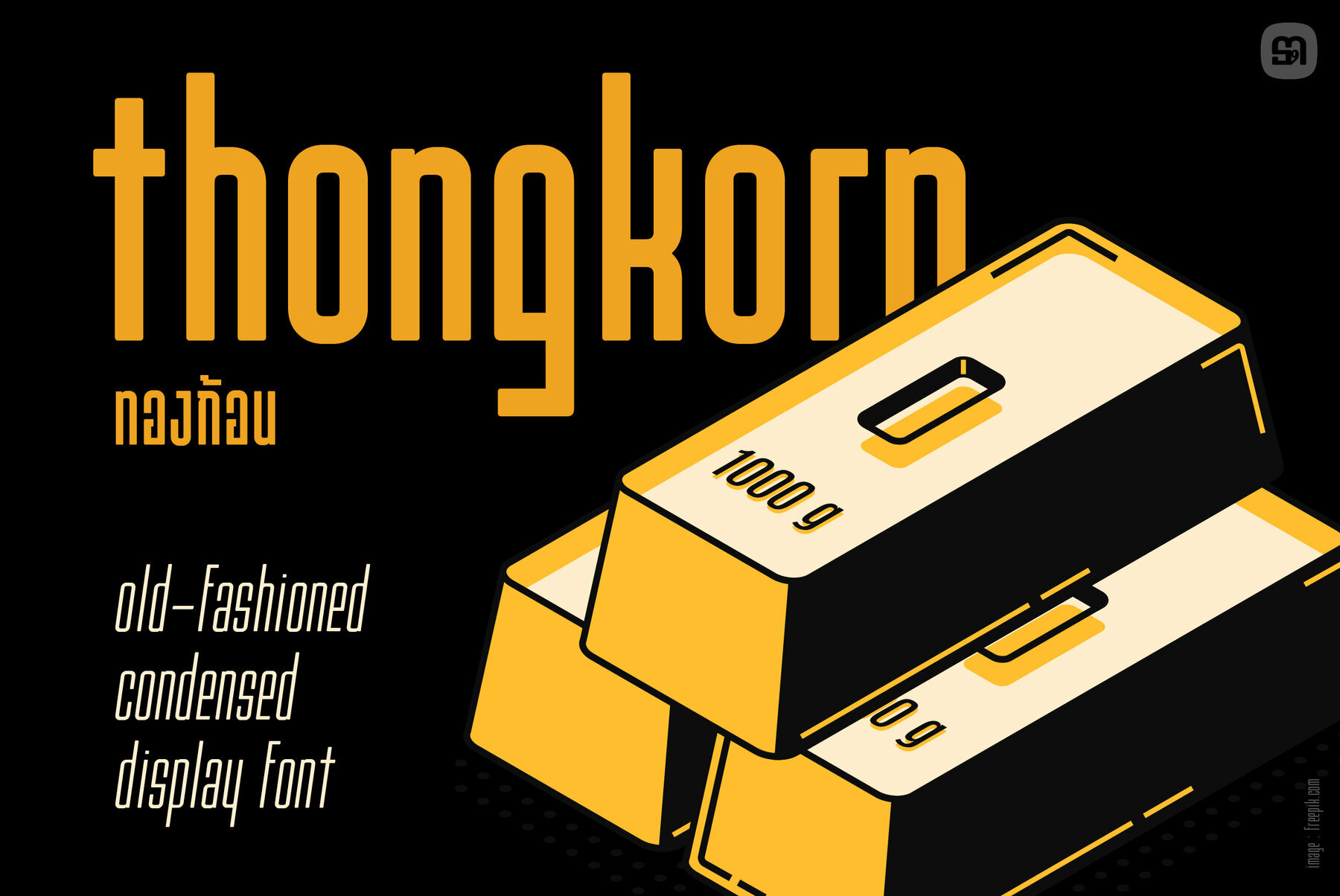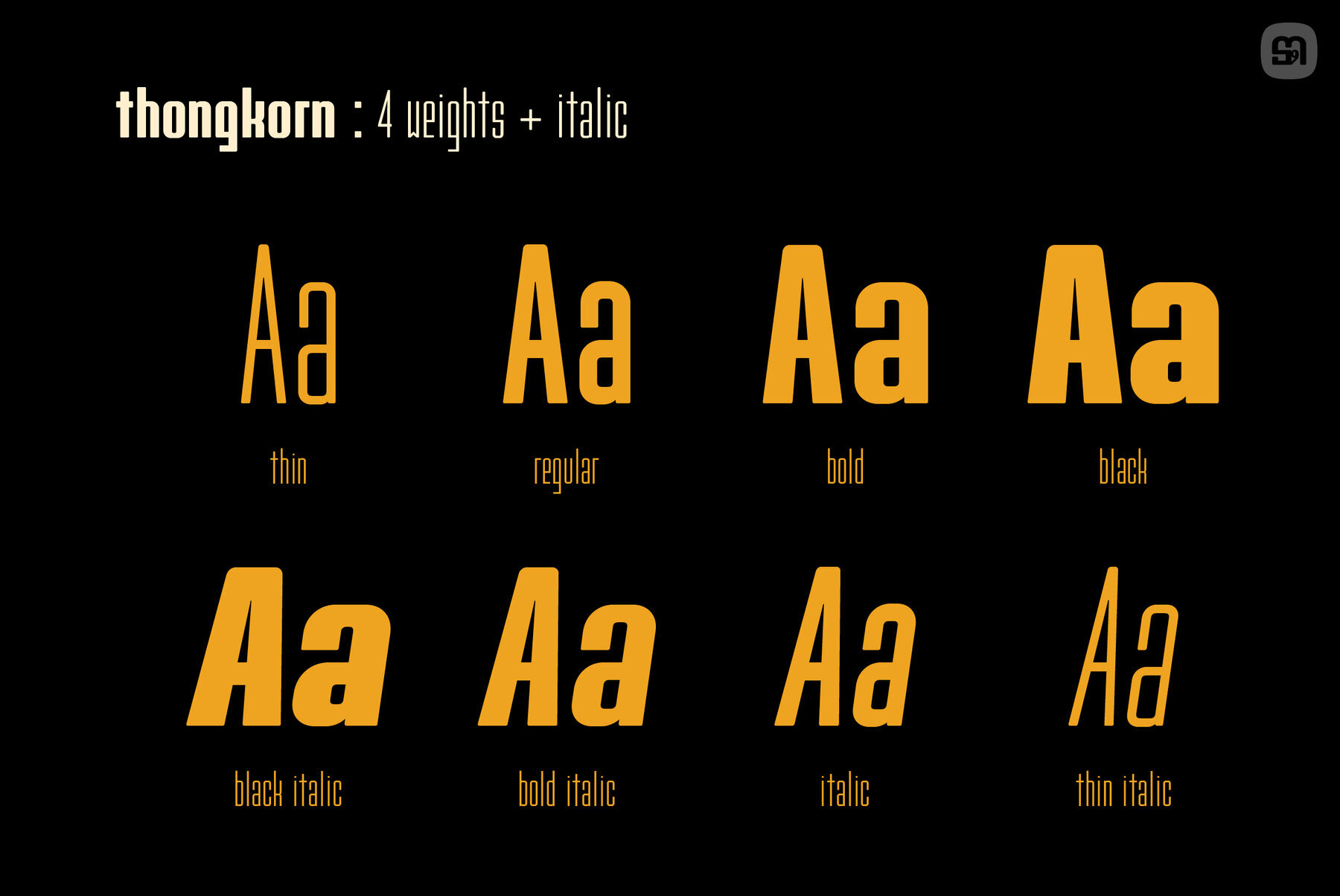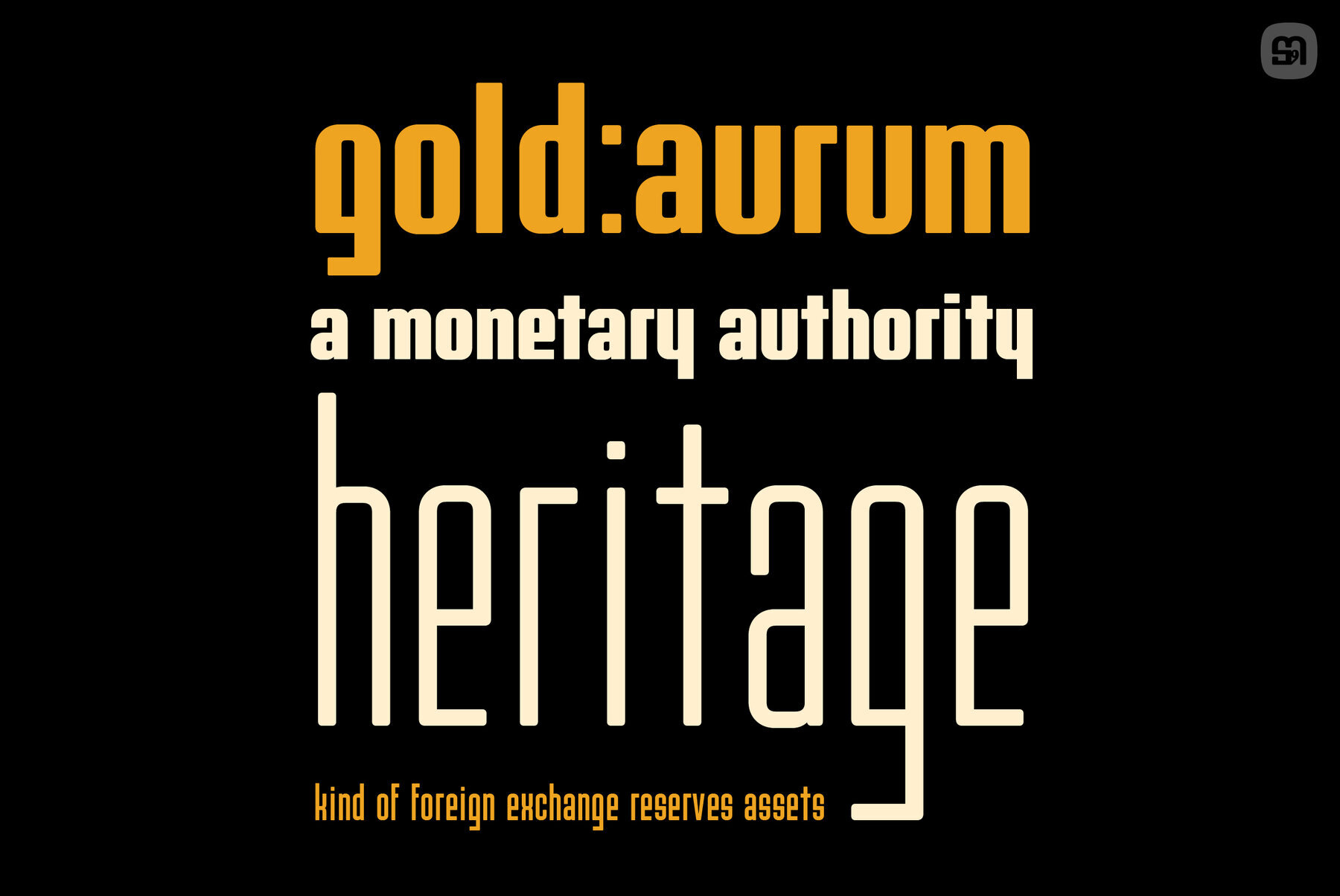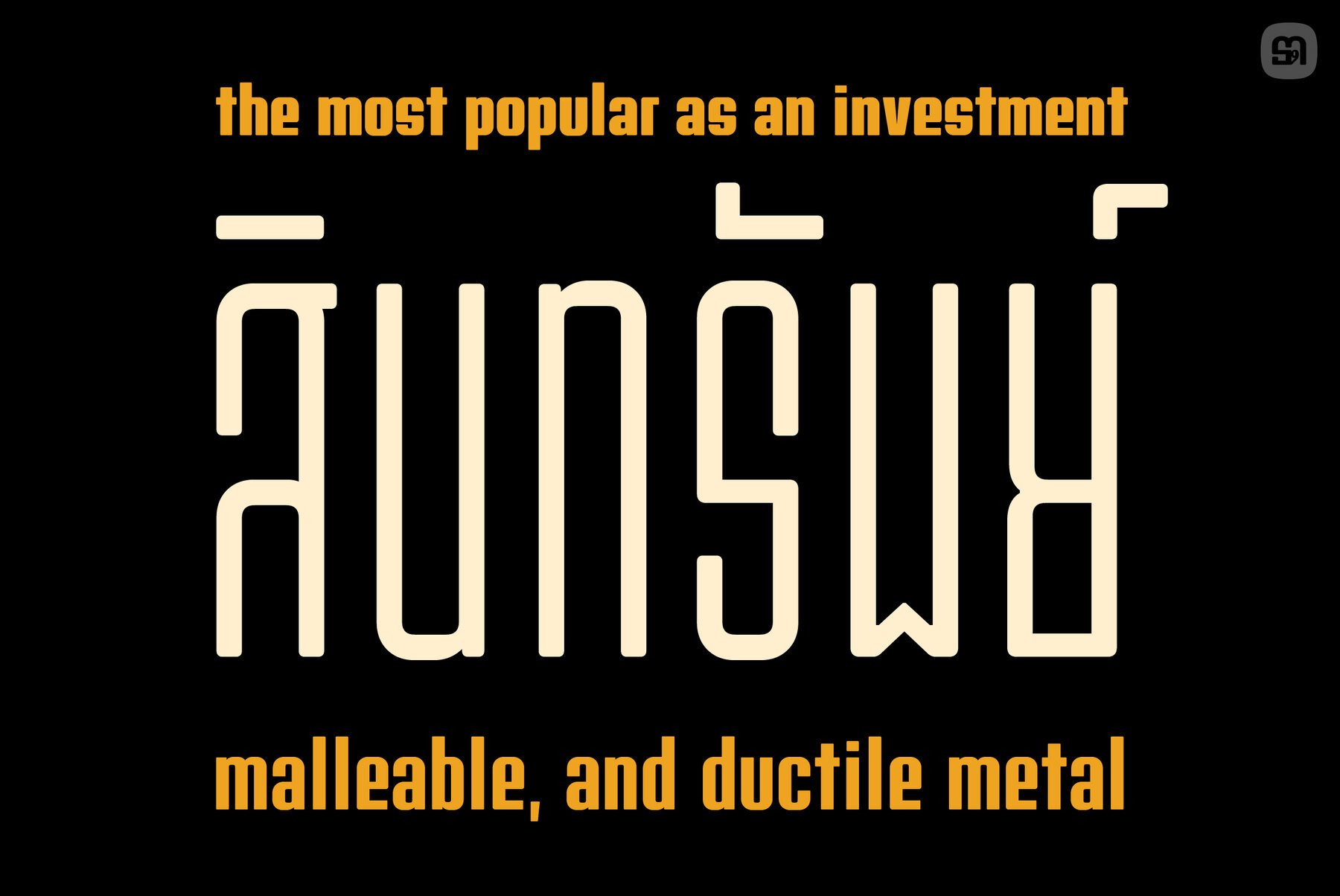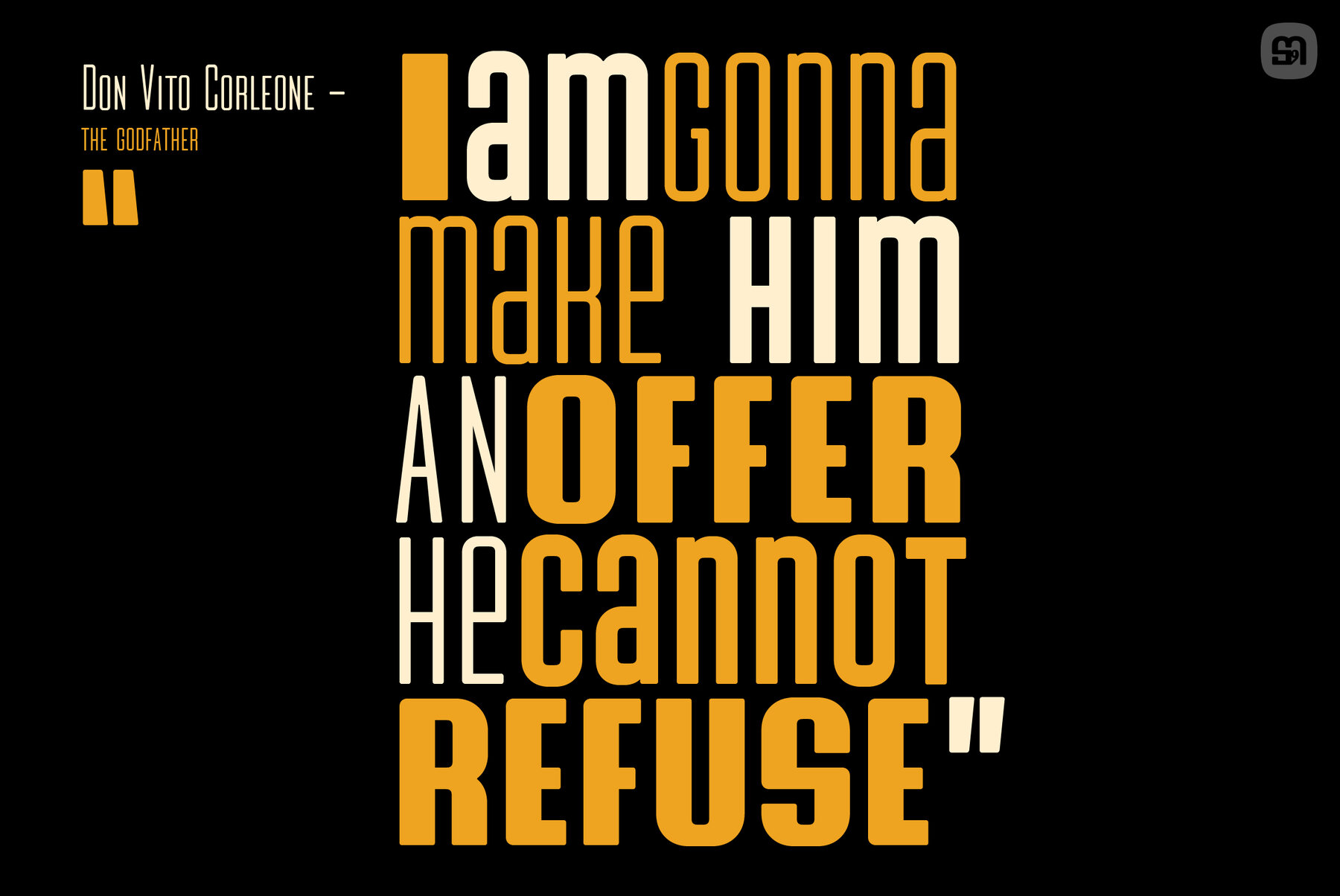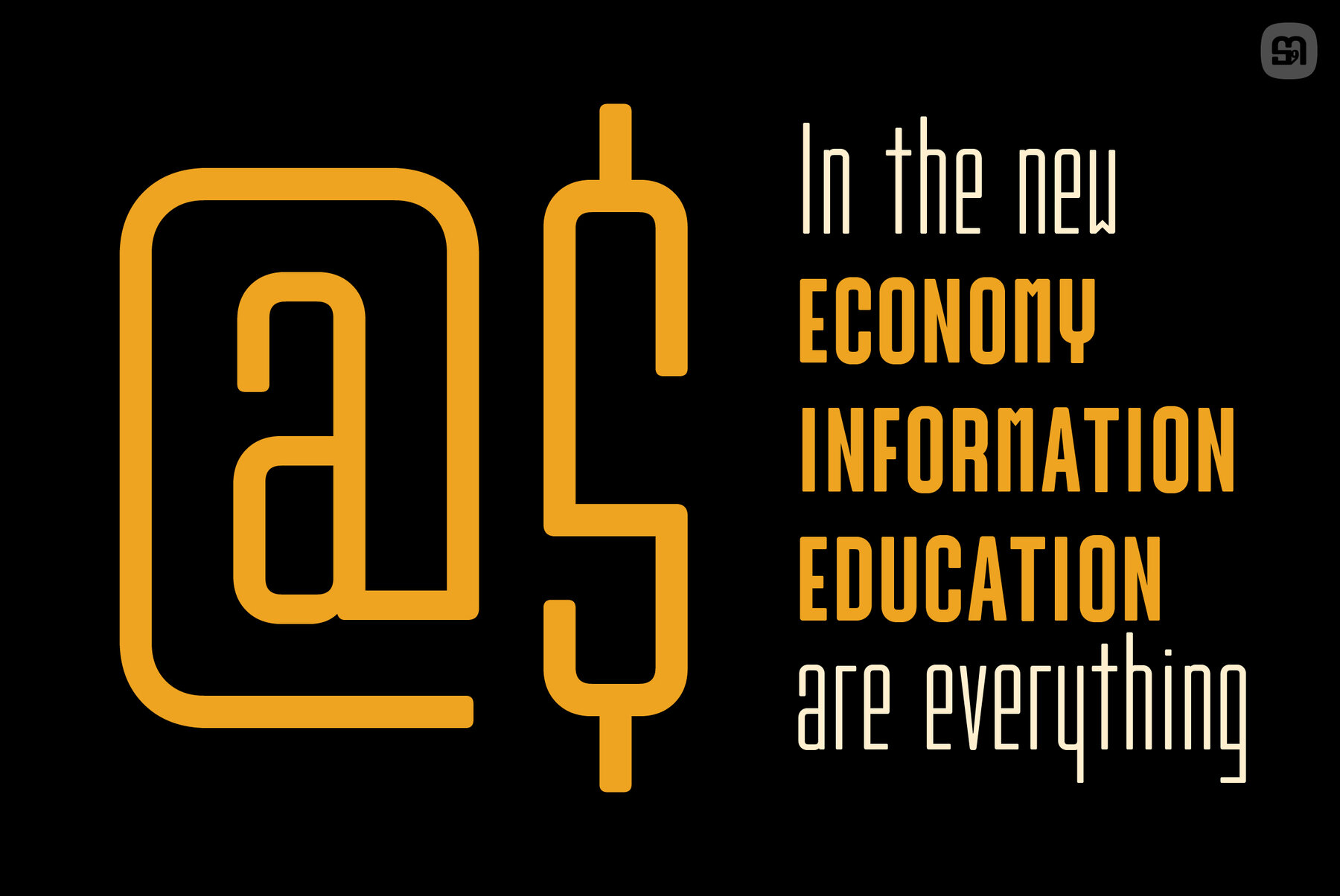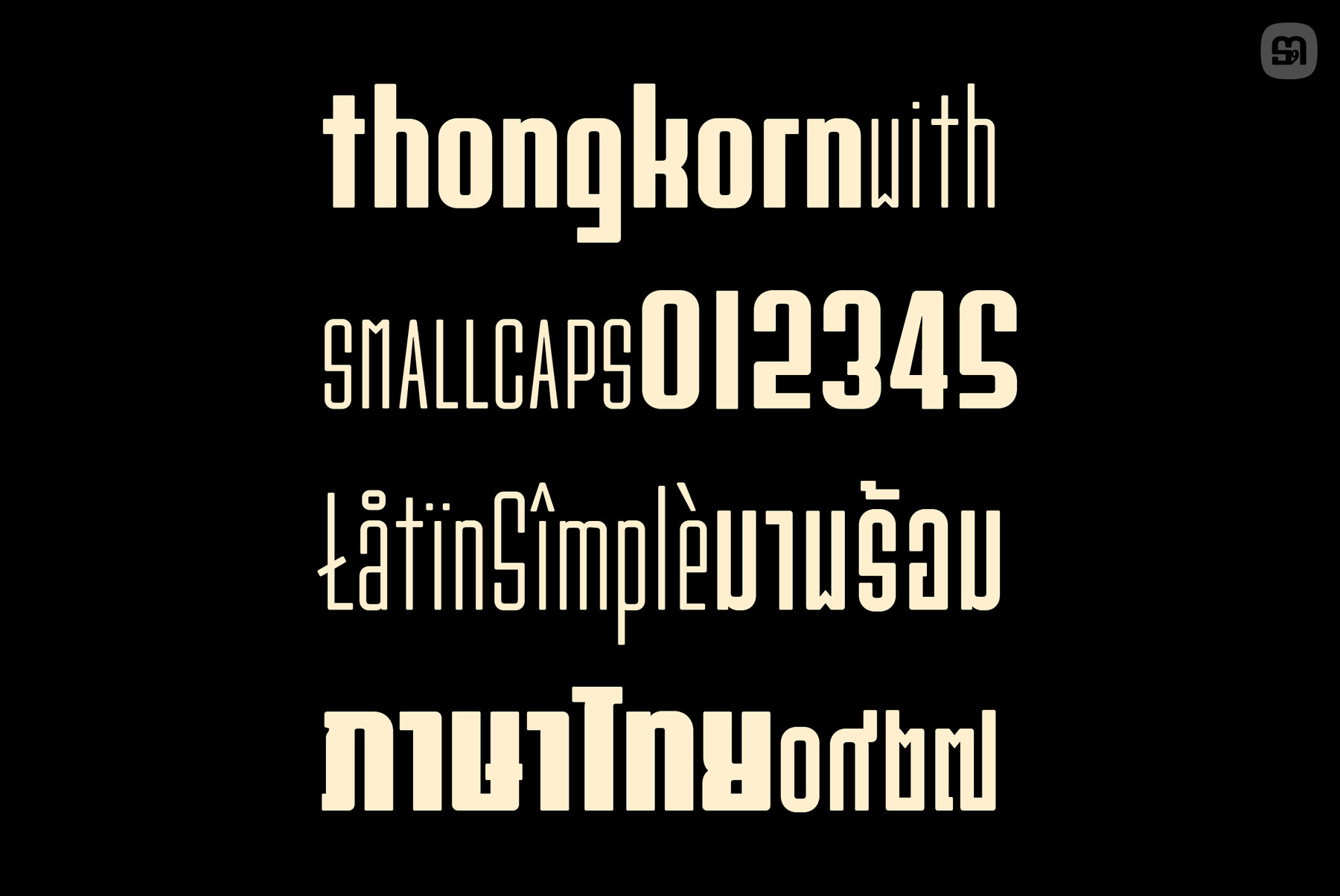
thongkorn Font
Thongkorn is an old-fashioned condensed display font that would be perfect for your upcoming projects e.g., logos and branding, editorial design or magazines!